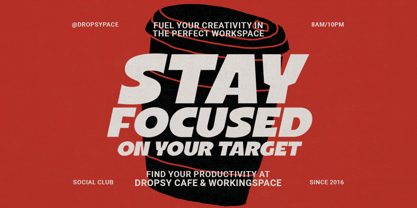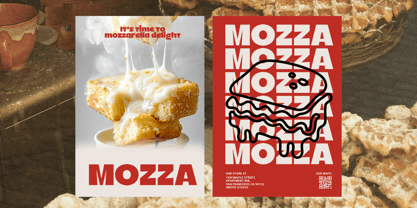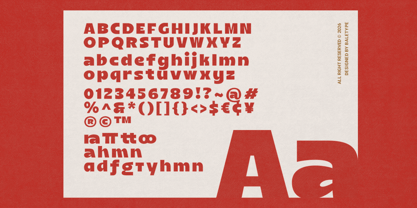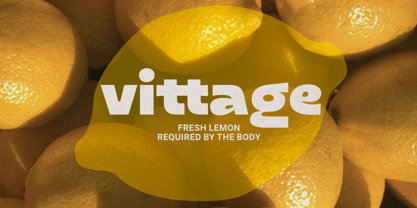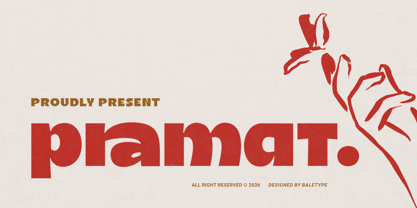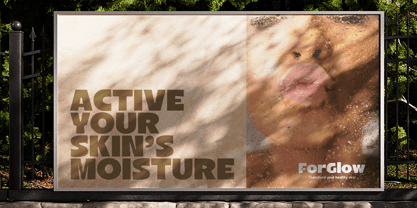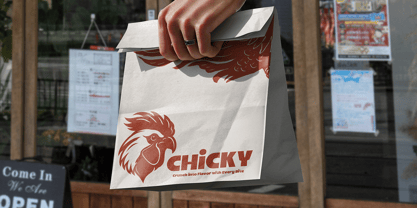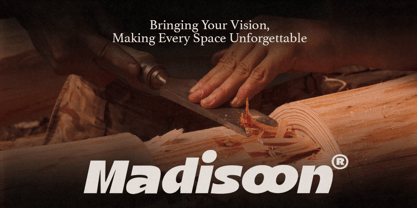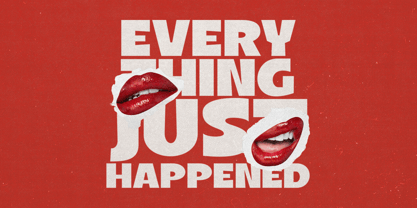
Pramat
by Bale Type
The Pramat Font Family was designed by Dzikrul Aulia and published by Bale Type. Pramat contains 2 styles and family package options. More about this family
Pramat is a modern, bold sans-serif typeface with a sleek and stylish appearance that instantly catches the eye. Designed to deliver a strong and sophisticated impression, it works perfectly for a wide range of creative needs, including posters, logotypes, café branding, quotes, and overall visual identity projects. Its confident character makes it especially suitable for designs that aim to stand out and leave a lasting impact. Equipped with a variety of alternates and ligatures, Pramat gives you the flexibility to create more dynamic, unique, and expressive typography. Additionally, it offers multilingual support, making it a versatile choice for global use across different languages and audiences.
Designers: Dzikrul Aulia
Current Foundry: Bale Type